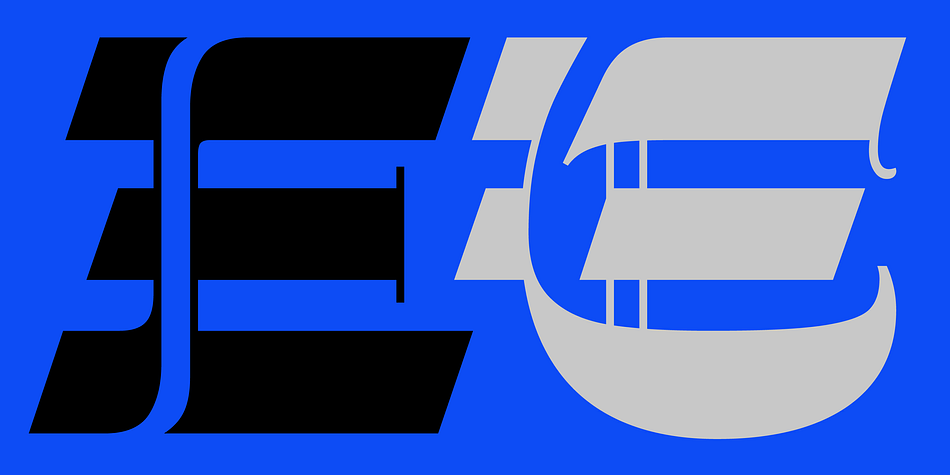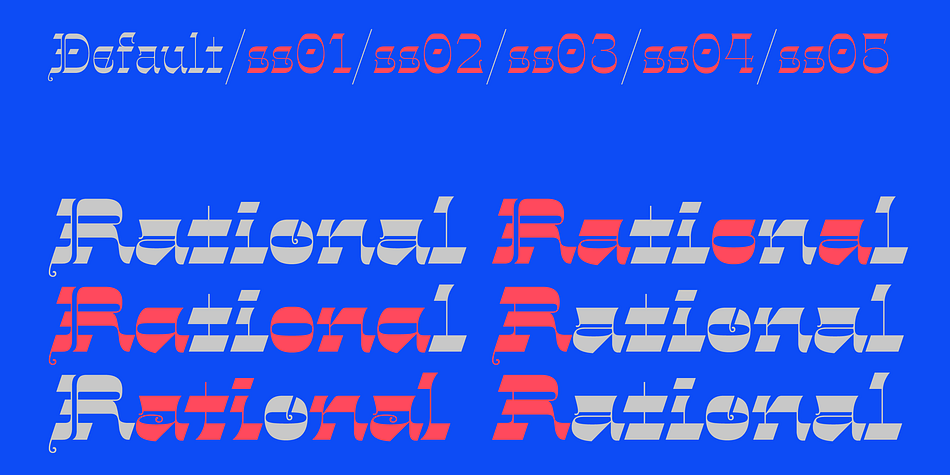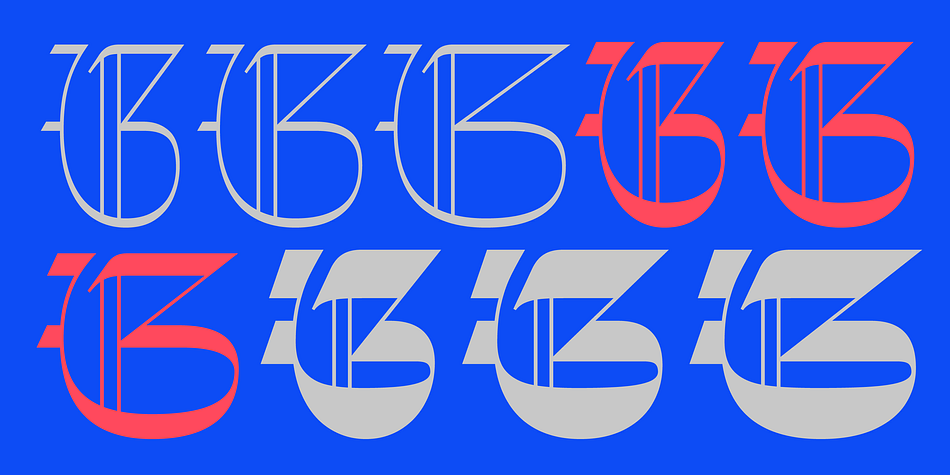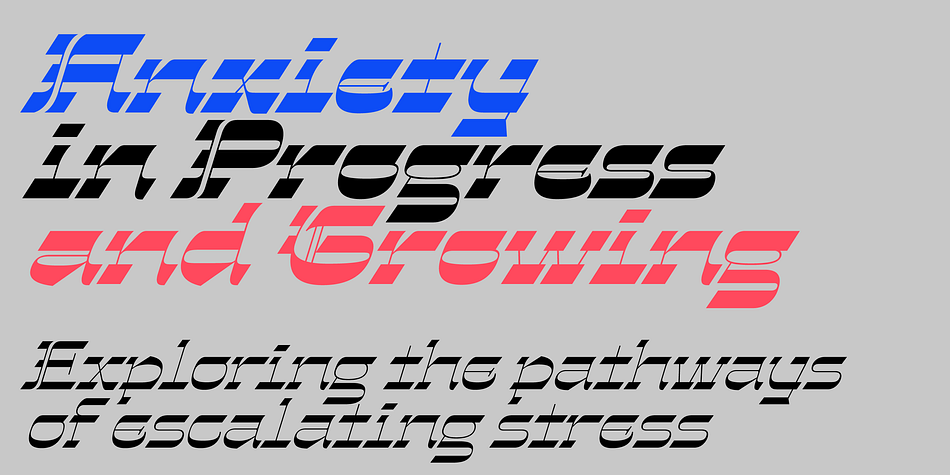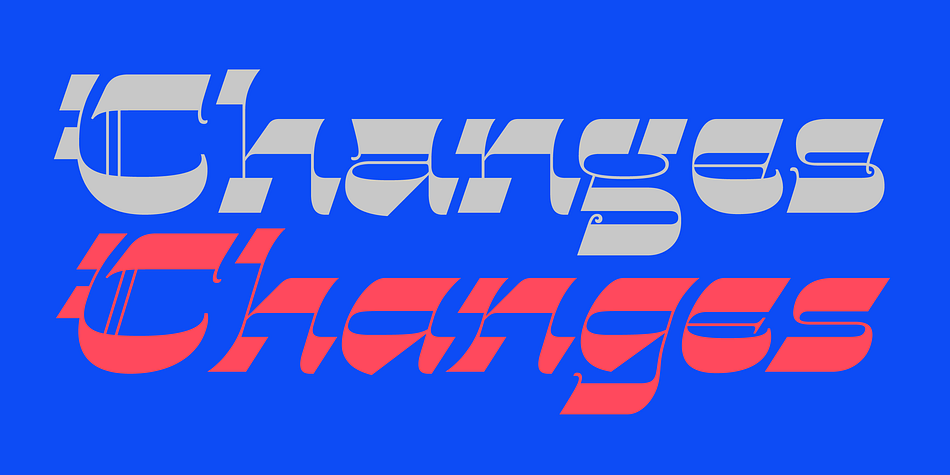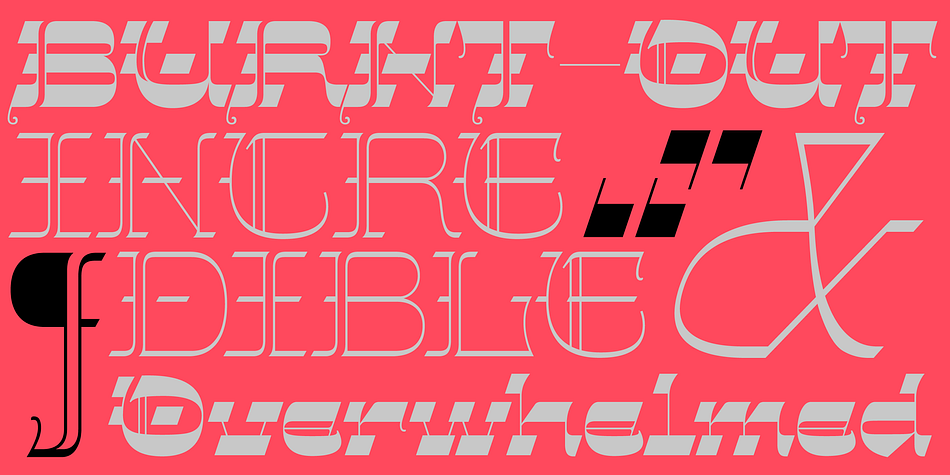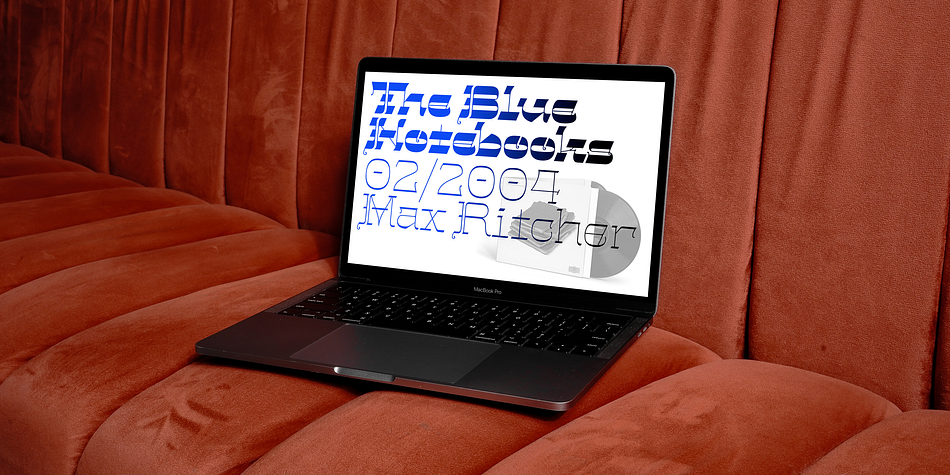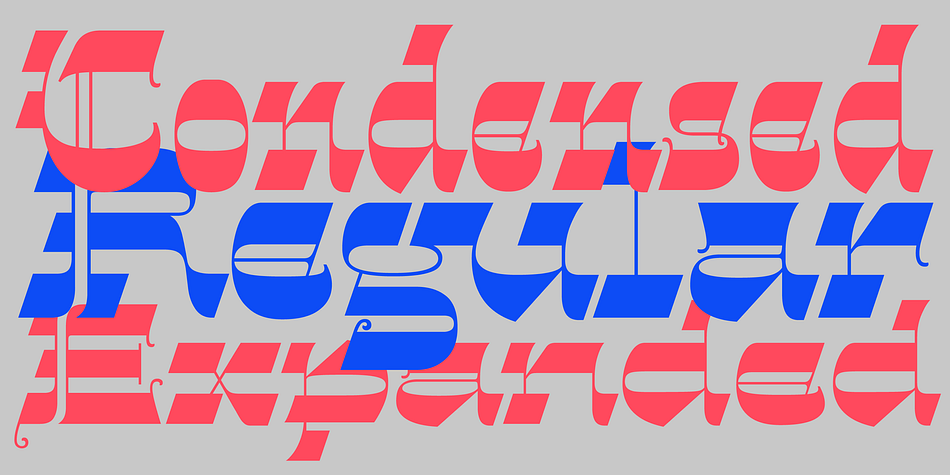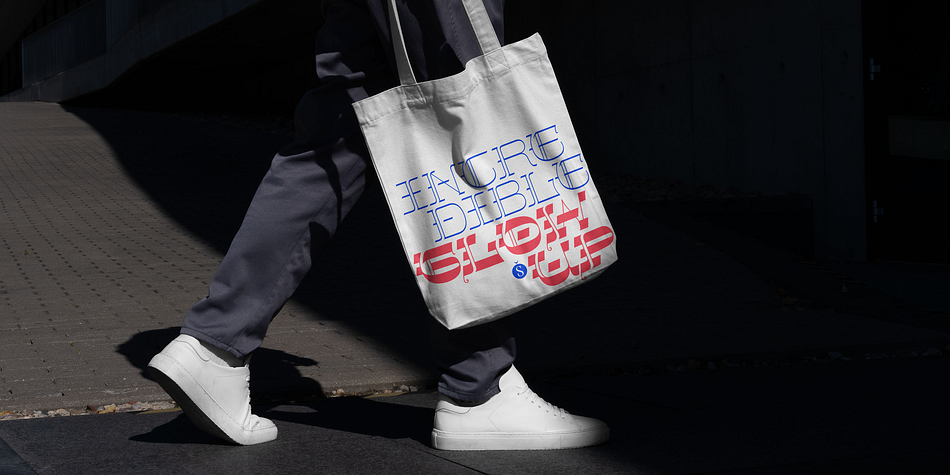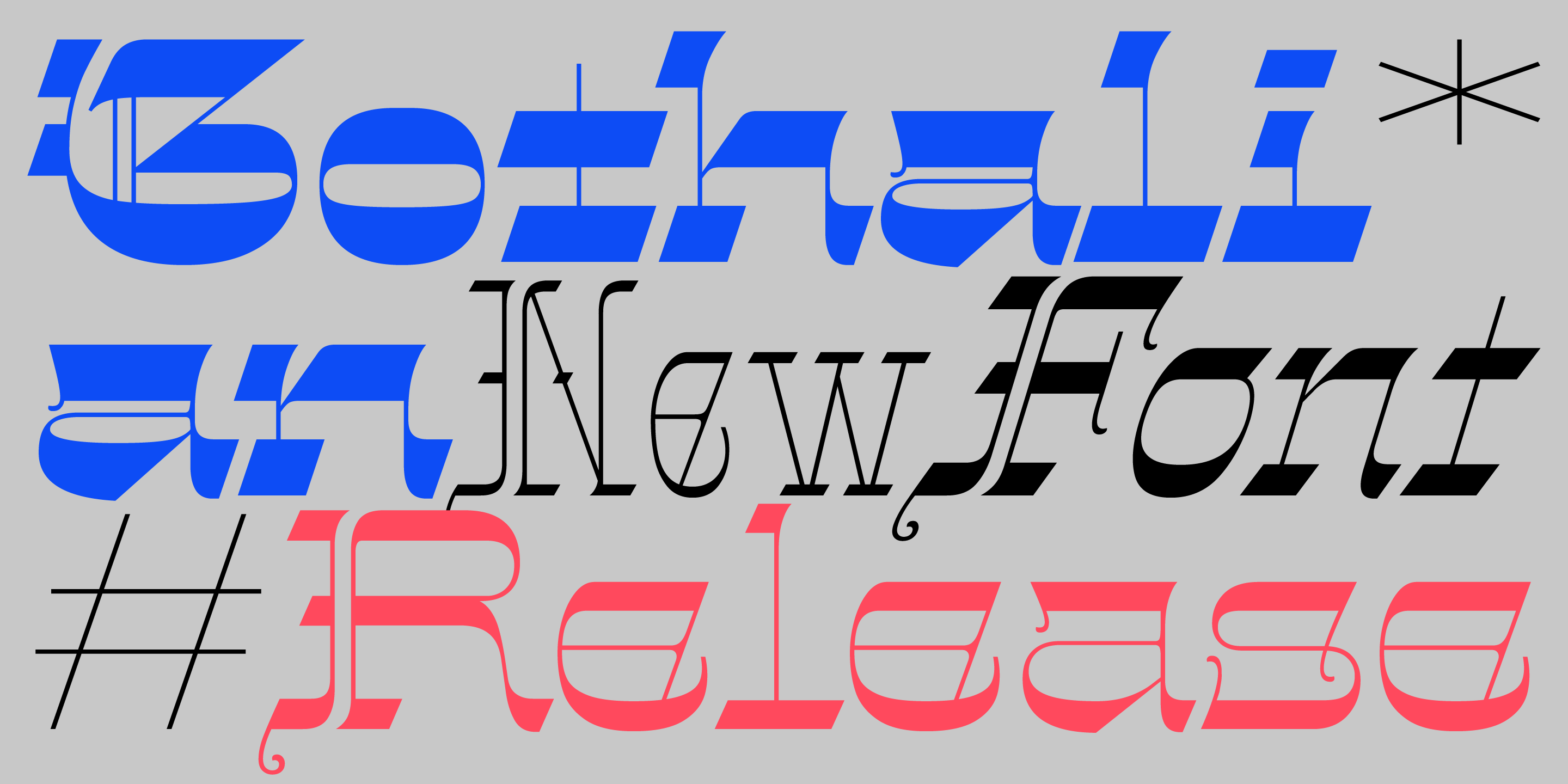
Gothalian
Designed by Alejandro Paul, Gothalian is an arts and crafts font family. This typeface has fifty-five styles and was published by Sudtipos.
Introducing the “Gothalian” font, a blackletter design influenced by the timeless elegance of Victorian ornamentation. This font takes its roots in Henry Brehmer’s 1890s metal type published by George Bruce’s Son & Co. We have revived the vintage source material with the ornate ironwork of the late 19th century, extrapolating the essence of the past to create a font that showcases a sophisticated and attractive look. The font boasts elaborate details inspired by the Victorian era, combined with a touch of darkness that adds a unique and captivating aura to your designs.
Its unique style makes it stand out and will give your designs a memorable look. The font is available as a versatile variable font and also in 54 static styles: 9 weights, 9 expanded weights, 9 extended weights, and their matching italics. It includes numerous alternates that provide endless design possibilities, along with a full set of characters covering a wide range of Latin-based languages.
The name “Gothalian” is a mix of two terms: “Gothic,” which refers to the style of blackletter typefaces that were prevalent in medieval Europe, and “Italian,” which describes reversed contrast typefaces in the 19th century. This combination of influences creates a unique and striking aesthetic that captures the essence of both historical styles.
We envision a wide range of uses for the font, including tattoos, headlines, logotypes, book covers, and invitations, infusing your designs with a touch of elegance, history, and mystery. With its Victorian influence over a gothic design, the “Gothalian” font is a harmonious blend of styles that is sure to make a statement in your designs.
The “Gothalian” font’s timeless appeal and rich history make it an excellent choice for any design project that seeks to communicate a sense of elegance, sophistication, and individuality. Whether you are working on a classic or modern design, this font is sure to add a touch of intrigue and character, making it a perfect fit for any designer or creative professional looking to make a lasting impression.